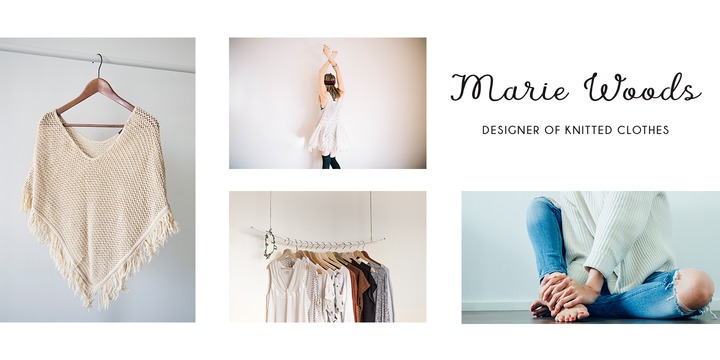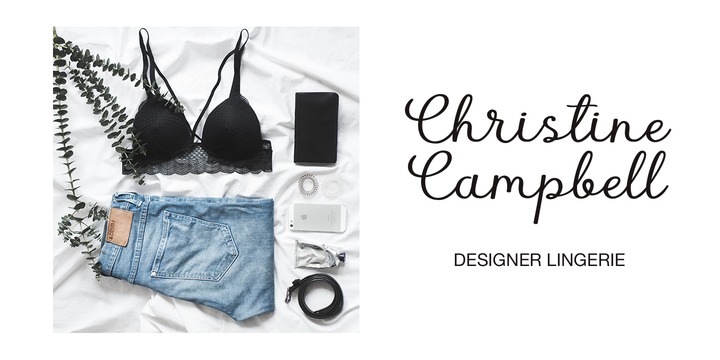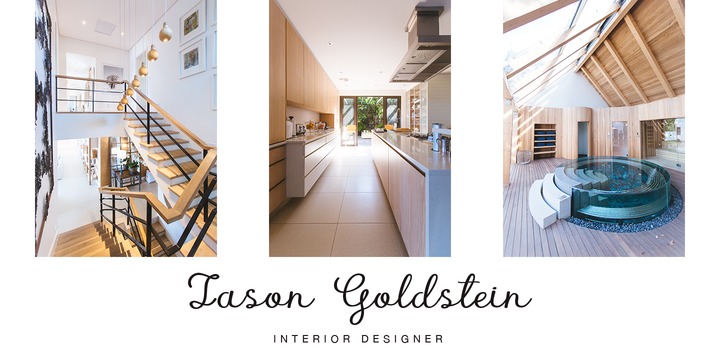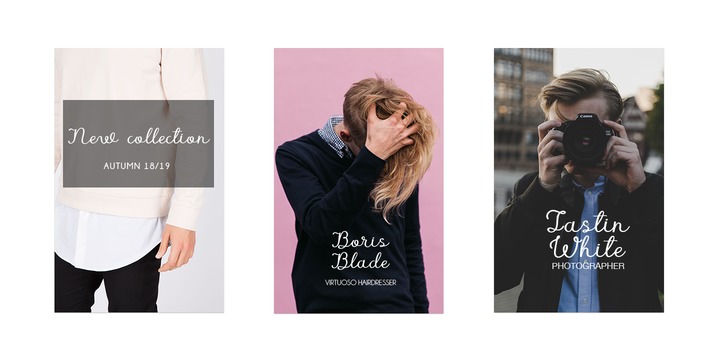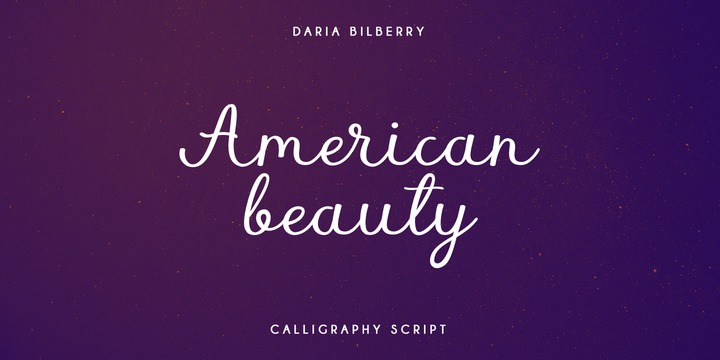
Meet my new AMERICAN BEAUTY calligraphy script. This handwritten script has been attentively written, with gentle curves to produce a font thats completely distinctive and original.
Perfect for adding a elegant and unique touch to your lettering projects and branding Also with their help, you can create a Wedding lettering or beautiful frame for your home.
Or just use for your small business, book covers, stationery, marketing, magazines and more.